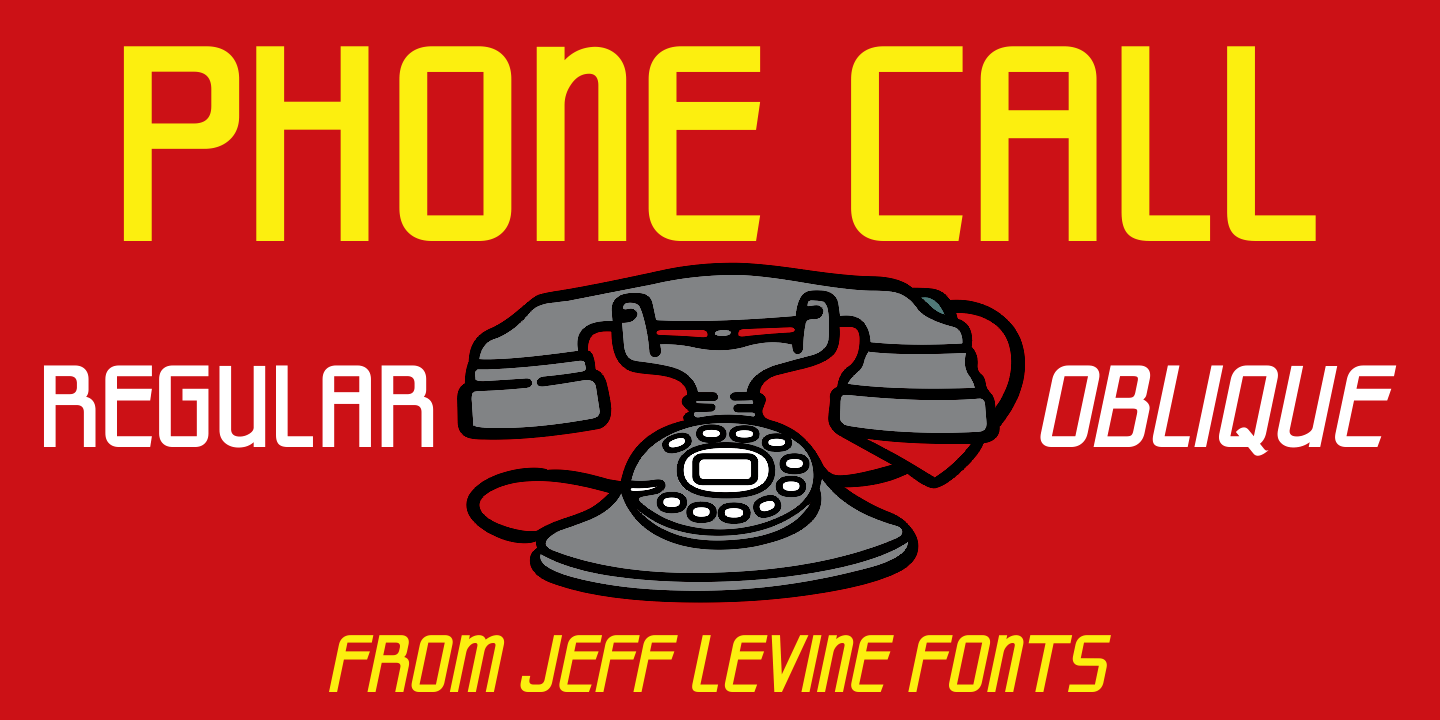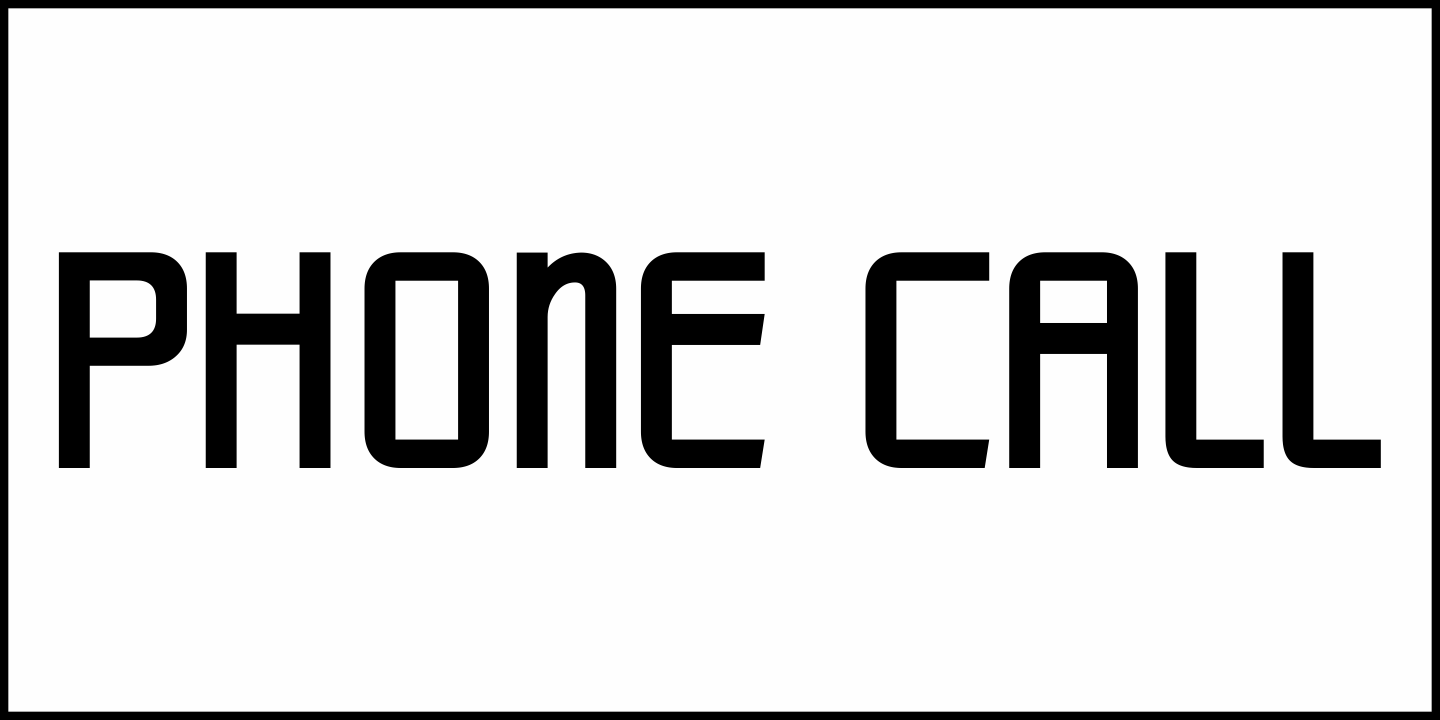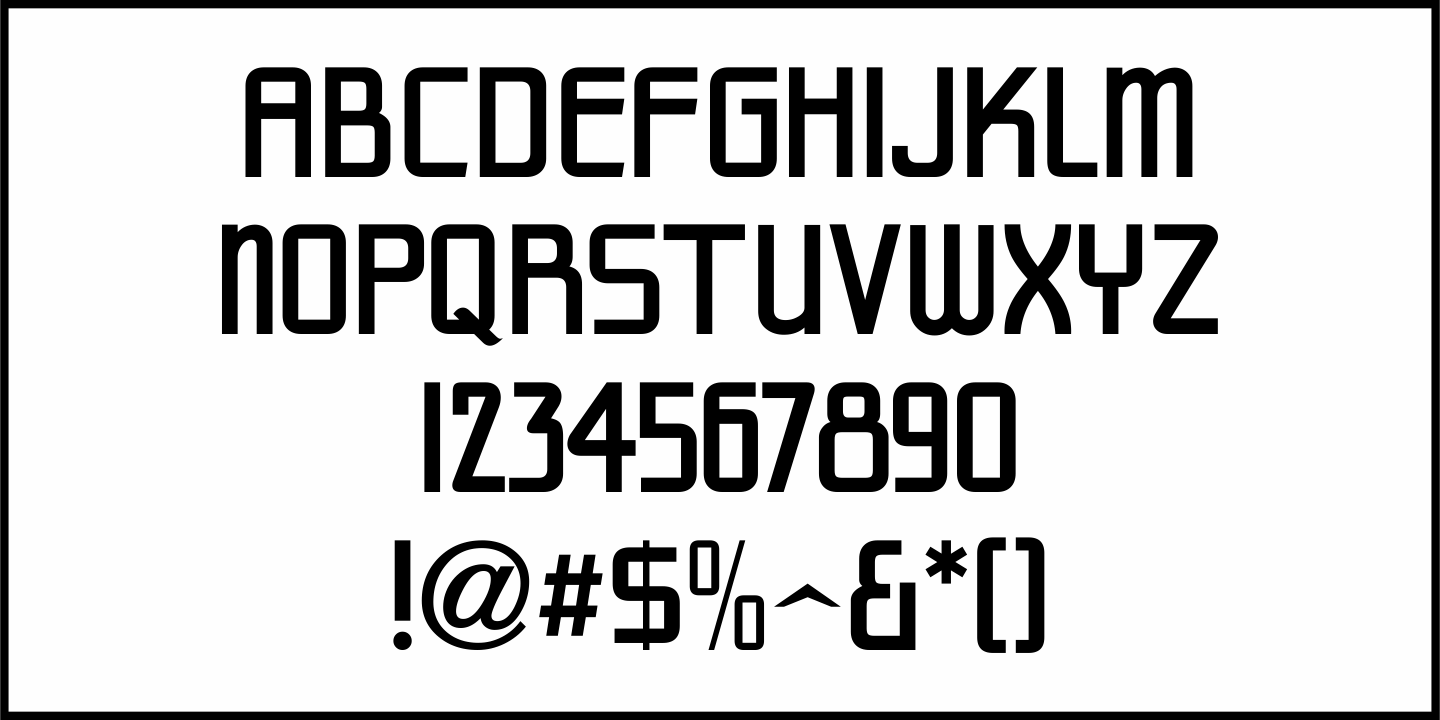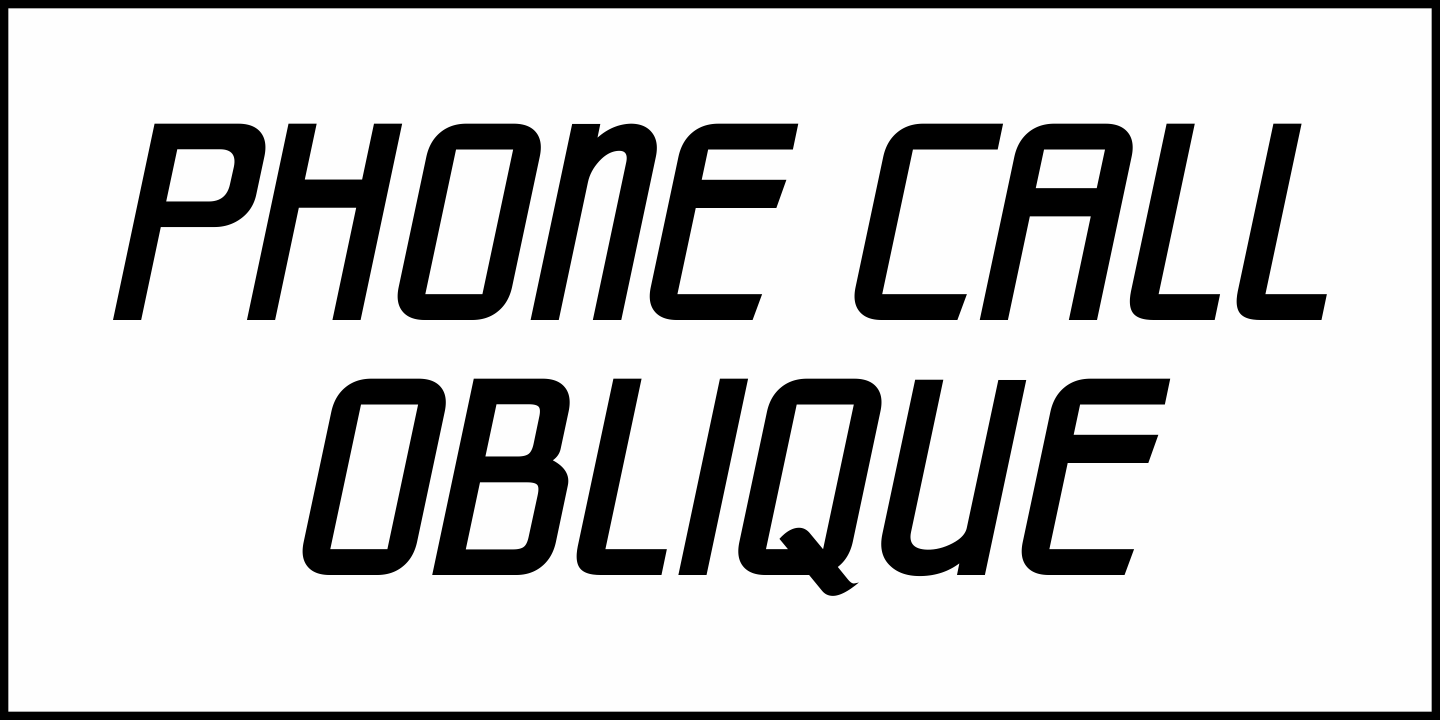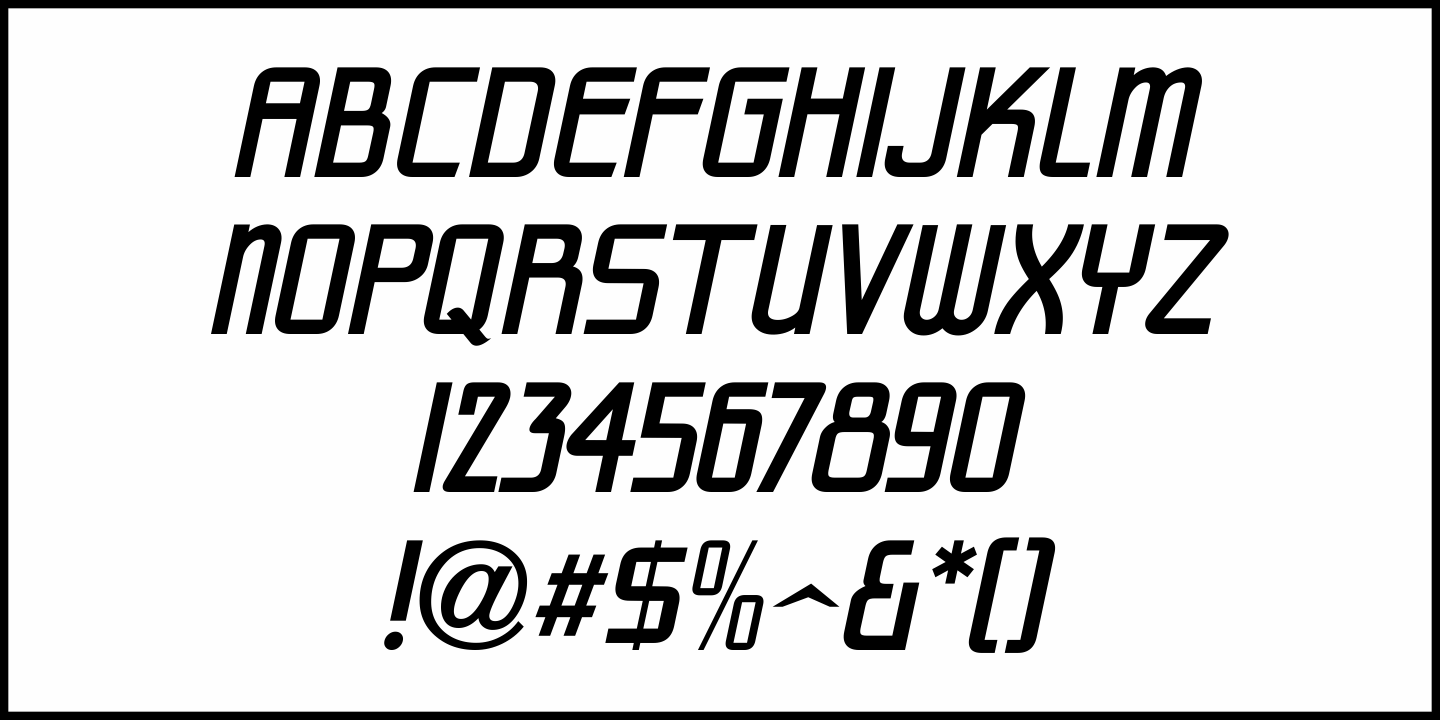
Phone Call
A pleasant. hand lettered Art Deco design from the 1942 book "Simplified Show Card Writing" by Carl Rousseau Havighorst inspired Phone Call JNL [available in both regular and oblique versions], which is just one of the many unusual typefaces offered by Jeff Levine Fonts for creative projects.
Phone Call by Jeff Levine Fonts